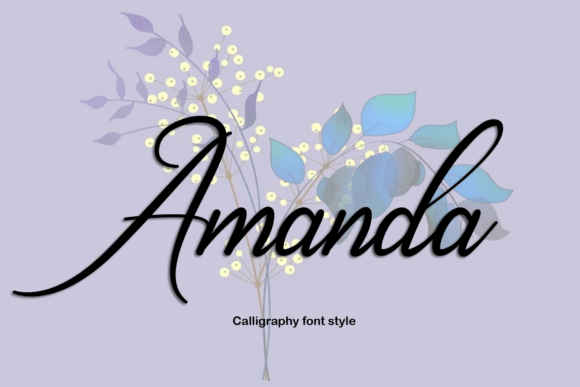
The Amanda Font: A Timeless Beauty for Your Design Projects
I’ll never forget the struggle I faced while working on a branding project for a luxury wedding planner. I had to find the perfect font that exuded elegance, sophistication, and romance. After hours of scouring through font libraries, I stumbled upon the Amanda font. It was love at first sight! ✨ The neat and beautiful handwritten font had an elegant touch that perfectly captured the essence of the brand. In this article, I’ll share my experience with the Amanda font, its features, and how to make the most of it in your design projects.
An Honest Review of the Amanda Font
What I Love About Amanda
- ✨ Elegant and sophisticated design
- 💫 Perfect for creating luxurious and high-end designs
- 🎨 Versatile and can be used for various design projects, from wedding invitations to branding materials
While the Amanda font is a stunning addition to any design project, there are a few things to keep in mind: 🤔
- ⚠️ Limited availability of stylistic alternates, which might limit its use in certain design contexts
- ⚠️ May not be suitable for body text due to its elegant, yet delicate nature
The Designer Inspiration Behind Amanda
The Amanda font was designed with the intention of creating a timeless and elegant handwritten font. The designer aimed to craft a font that would be perfect for luxury brands, wedding invitations, and high-end designs. With its delicate and sophisticated design, Amanda is sure to become a favorite among designers and crafters alike.
| Font Name | Amanda Font |
| Author | Alfa studio |
Q: What type of projects is the Amanda font best suited for?
A: The Amanda font is perfect for luxury brands, wedding invitations, high-end designs, and any project that requires an elegant and sophisticated touch.
Q: Is the Amanda font suitable for body text?
A: While the Amanda font is highly legible, it may not be the best choice for body text due to its delicate and elegant nature. It’s better suited for headings and titles.